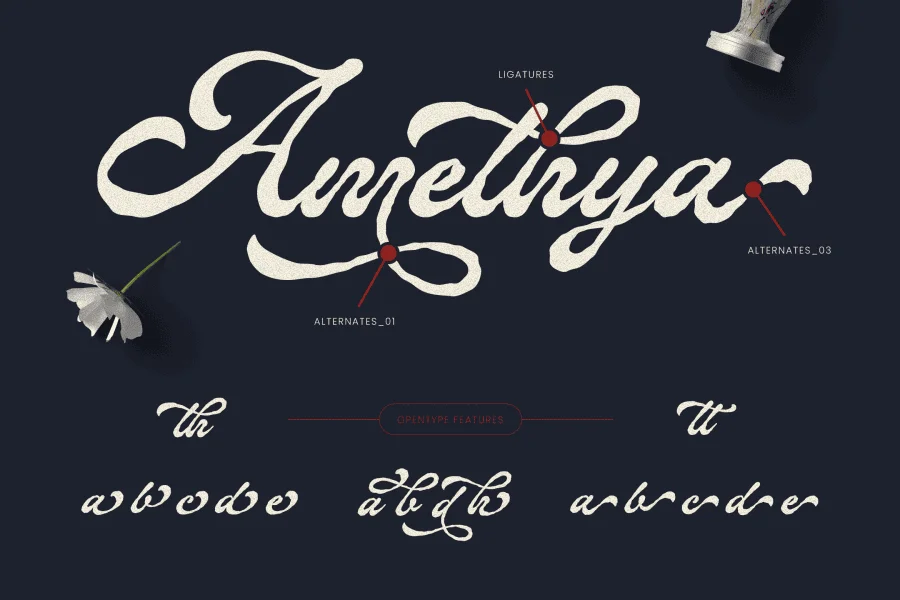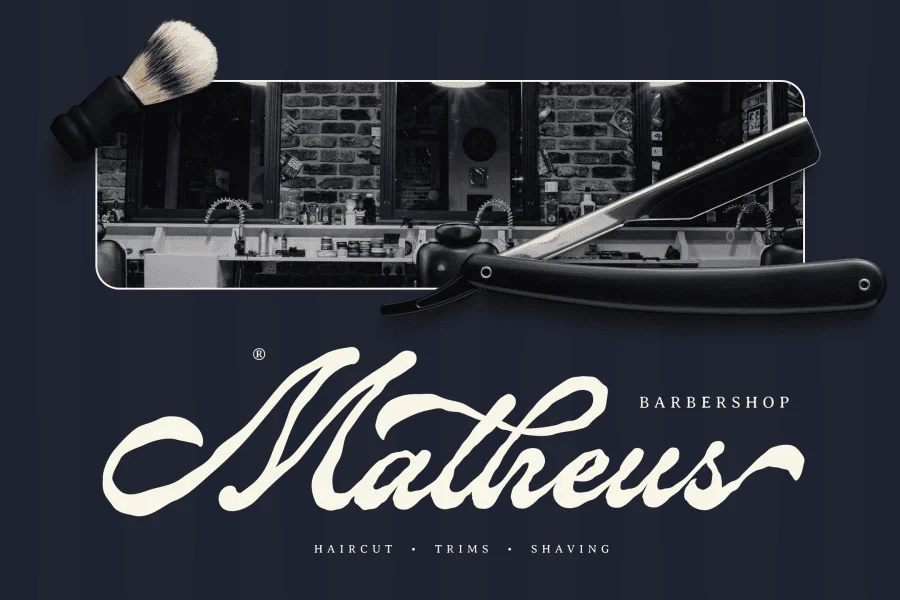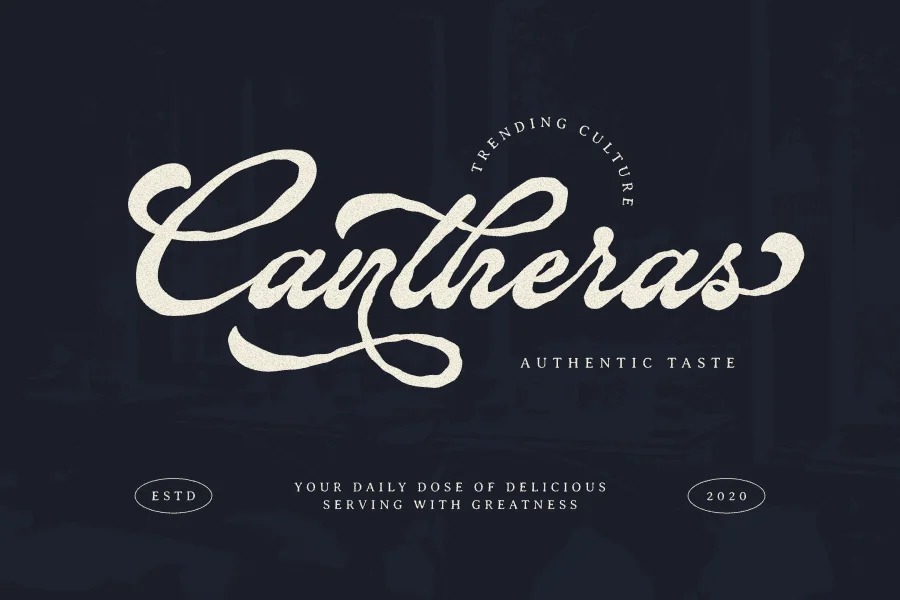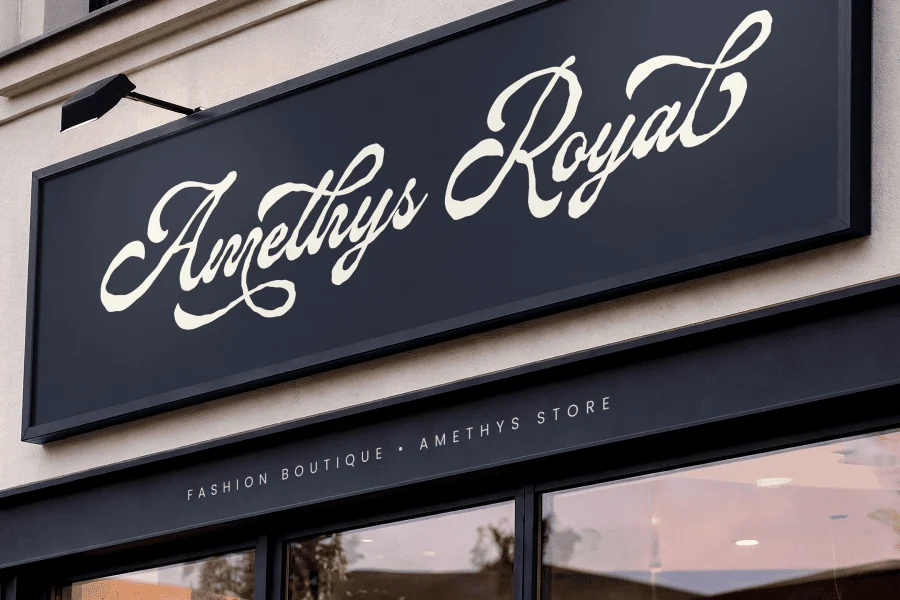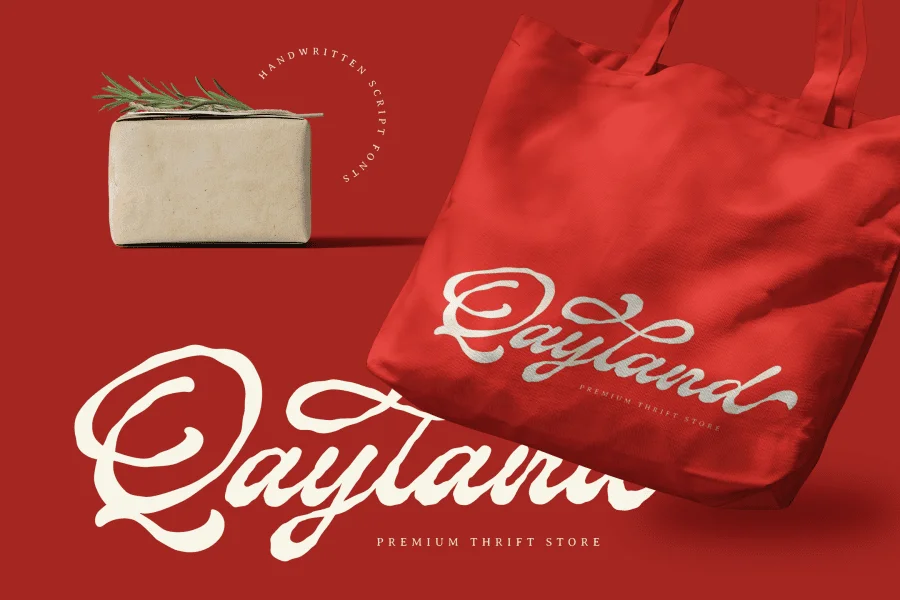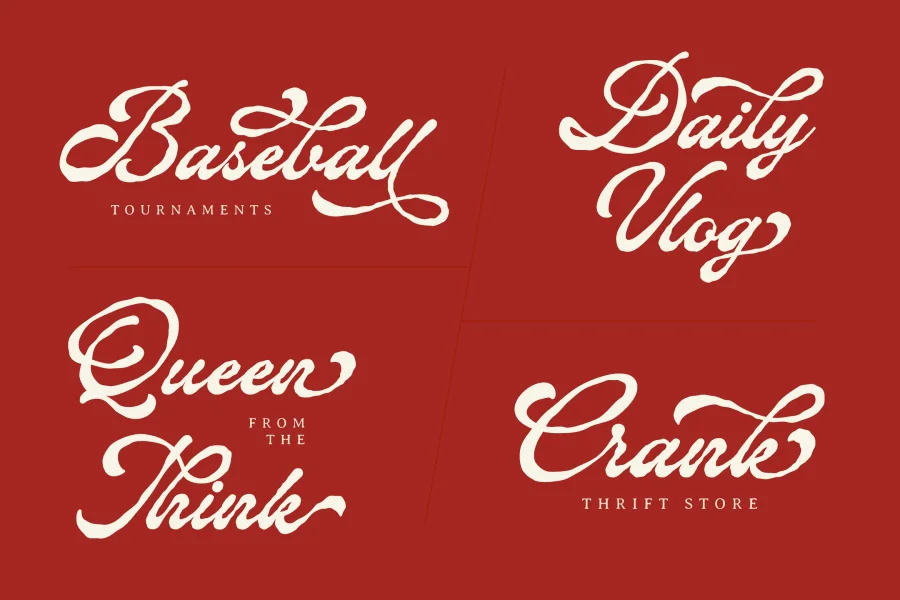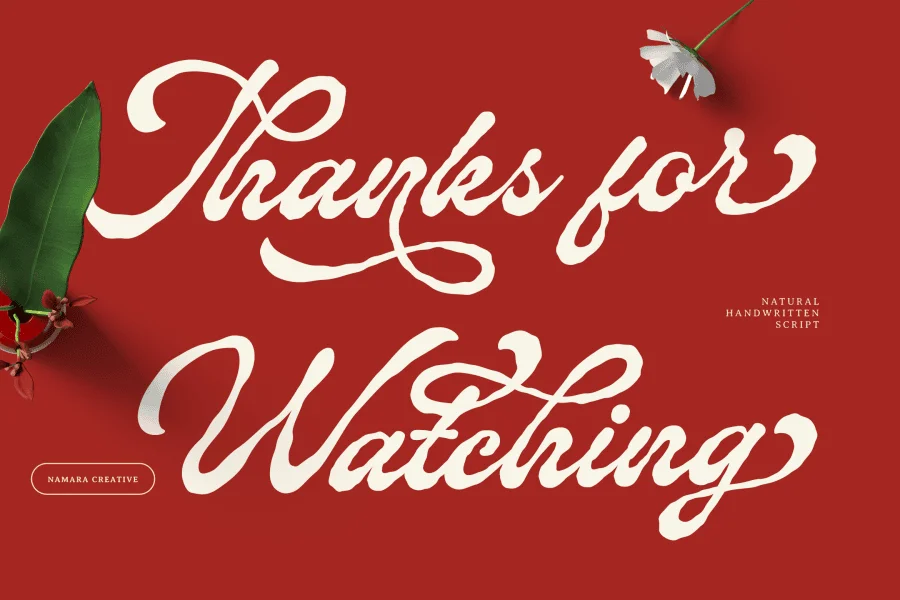
Montella Cracken is a natural handwritten script font crafted with relaxed rhythm and organic curves designed to feel like real pen on paper lettering.